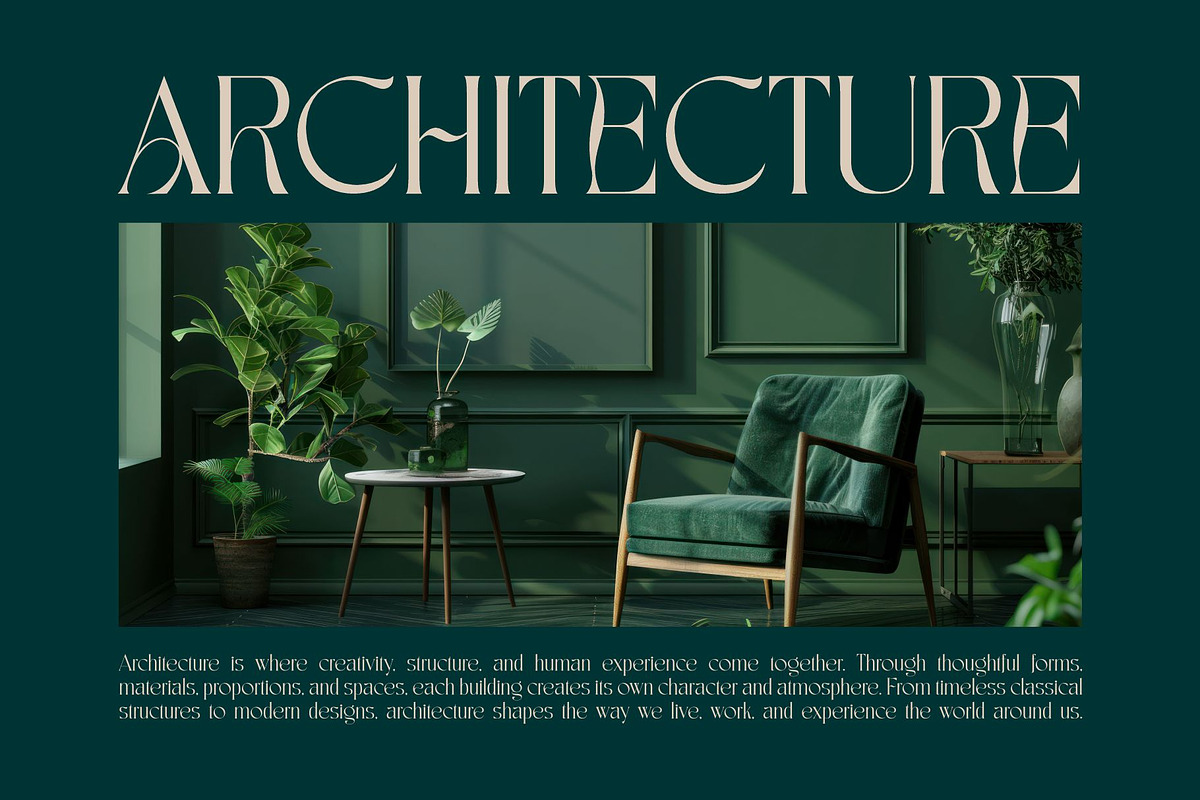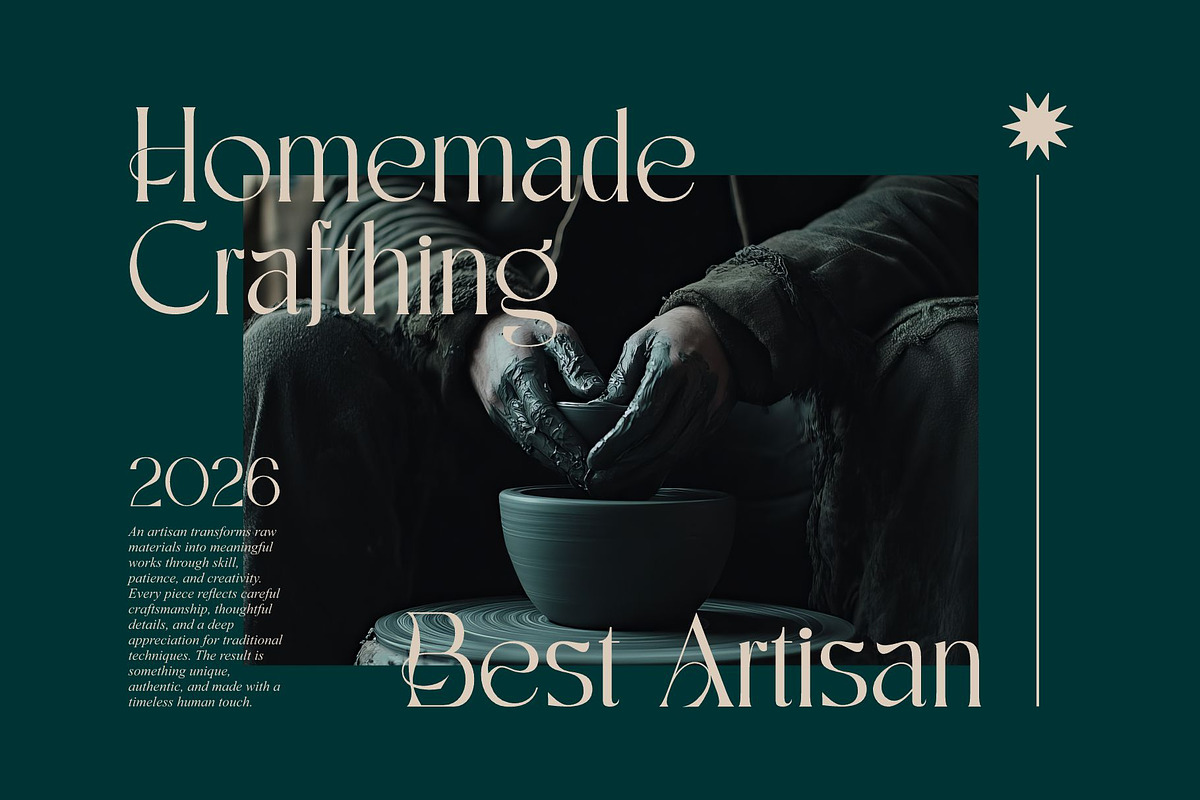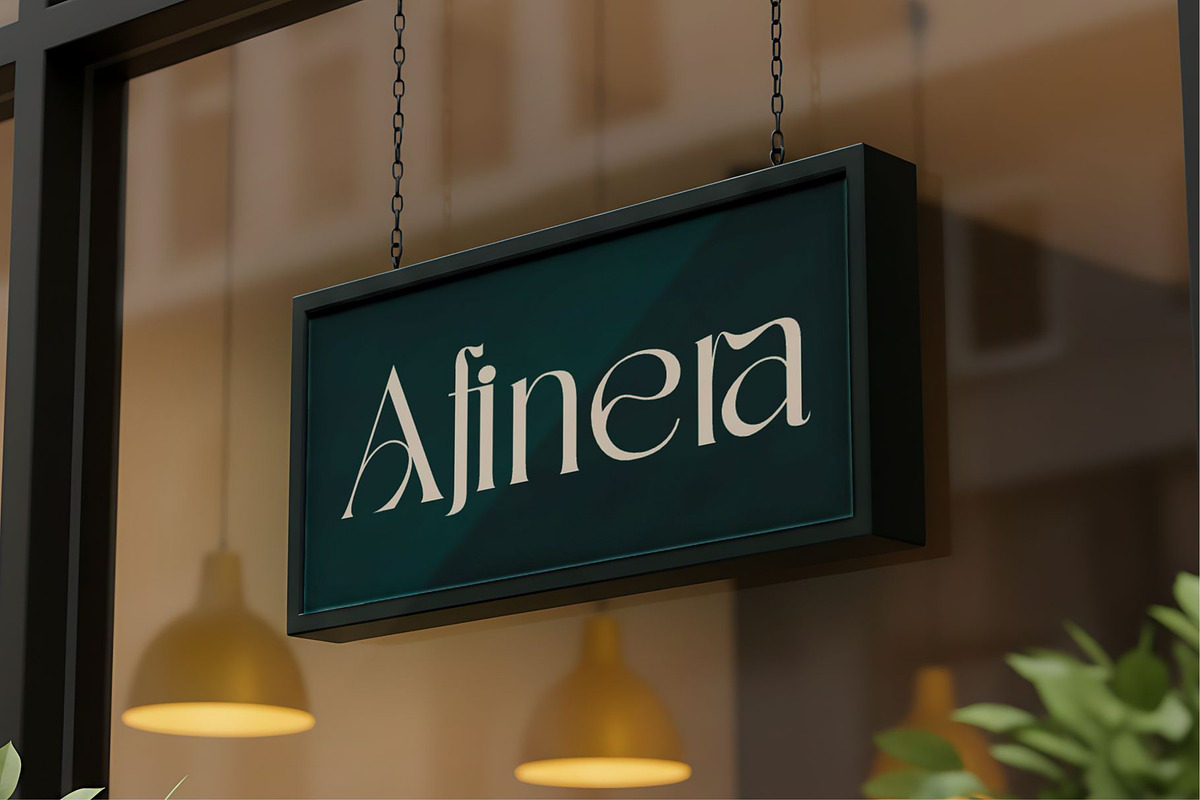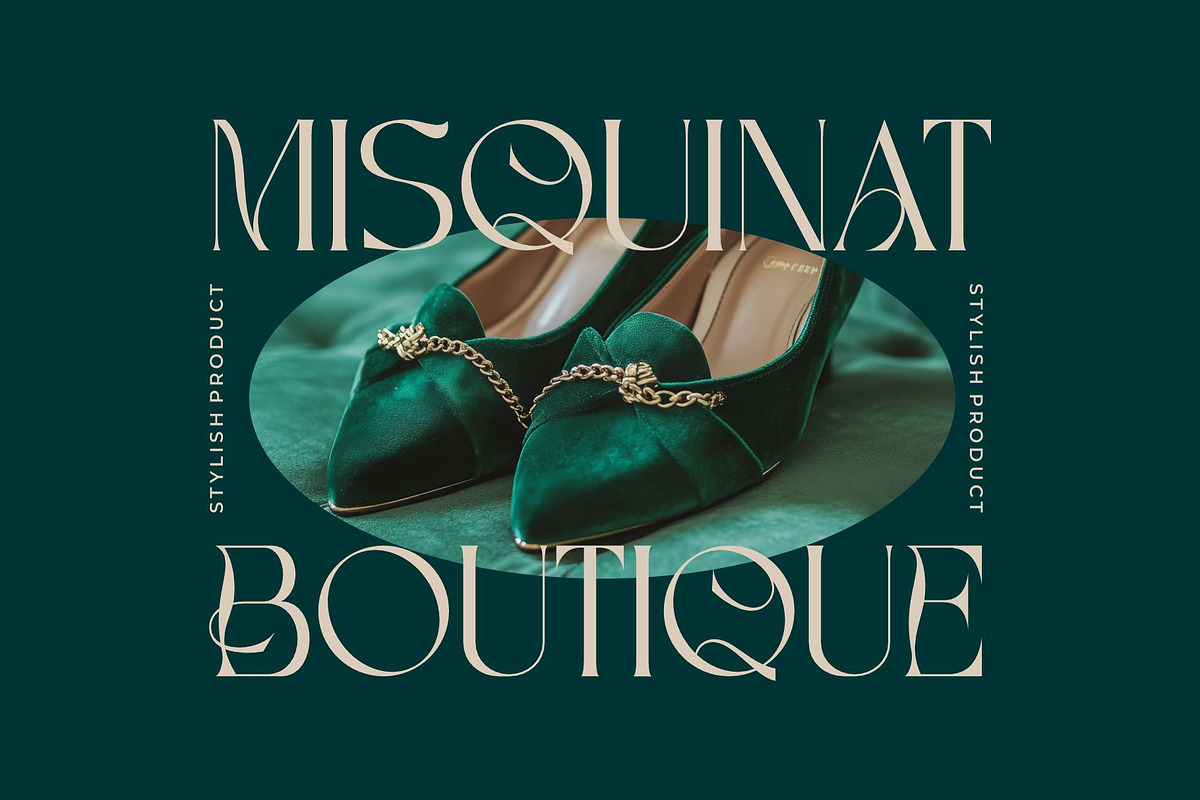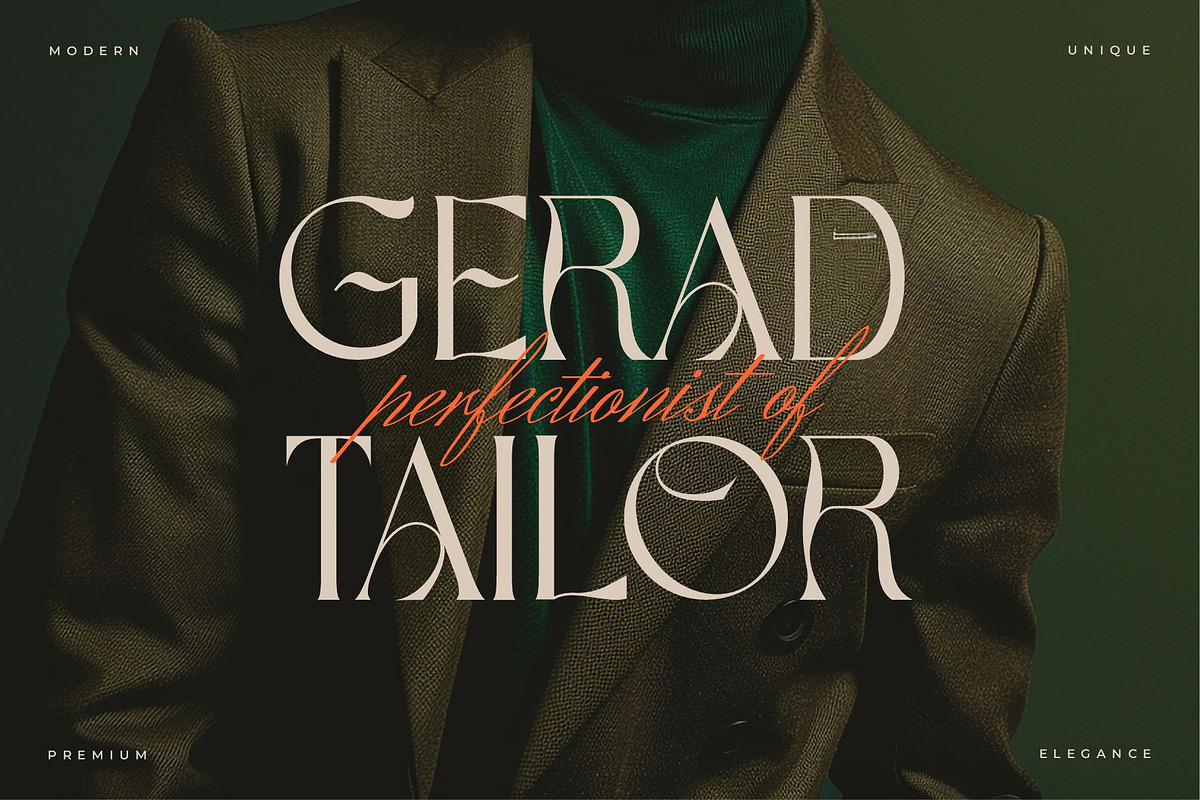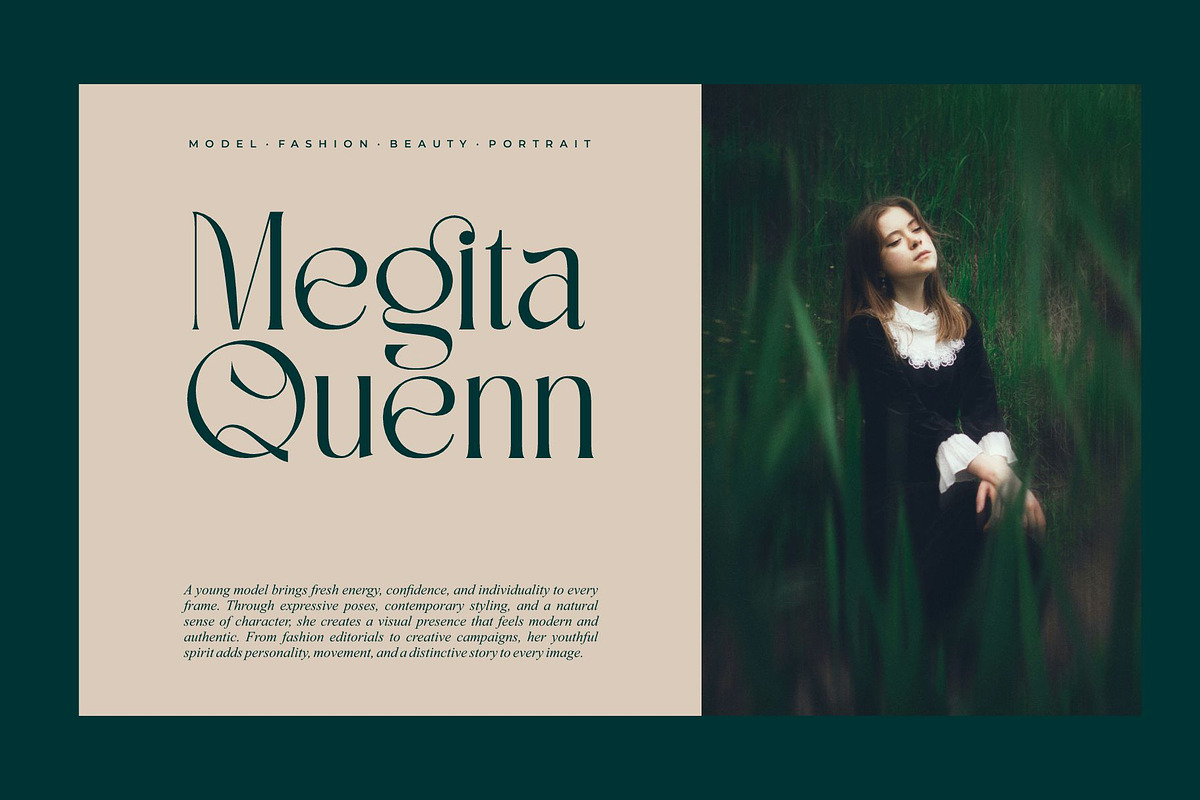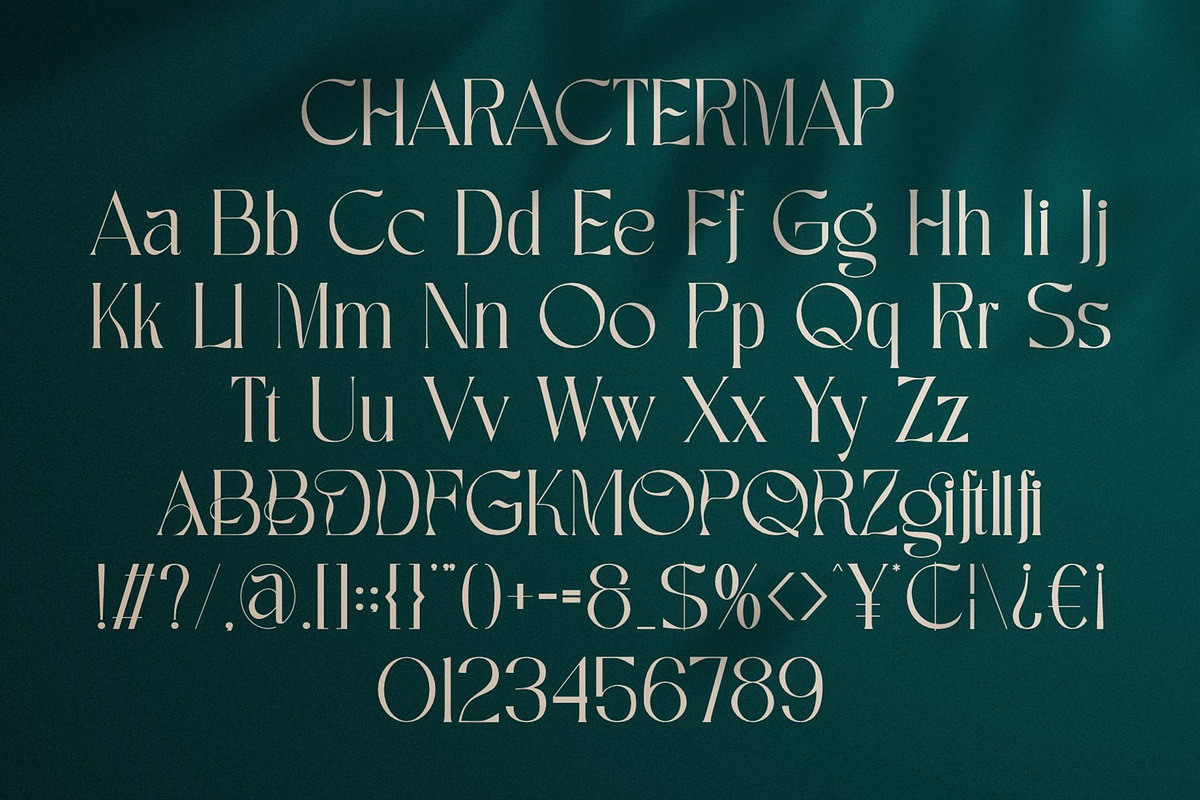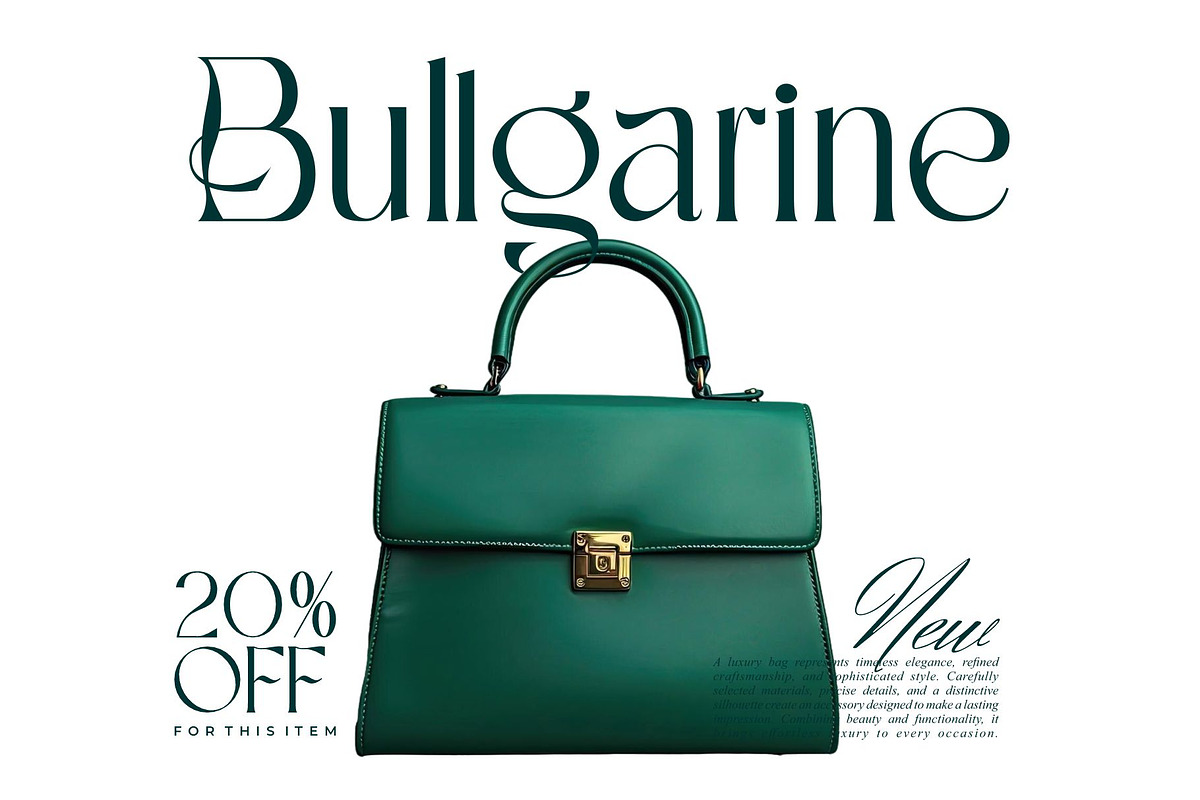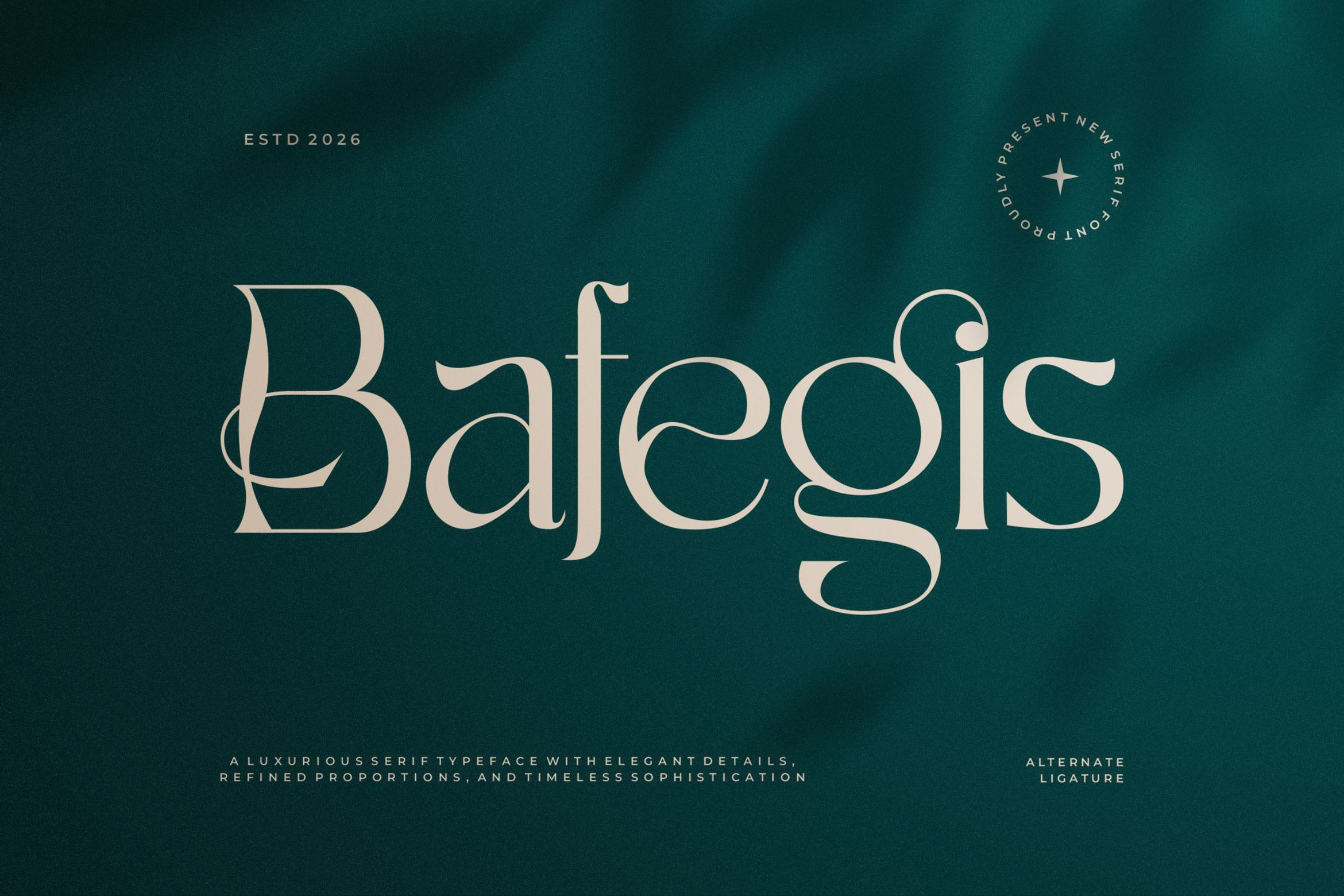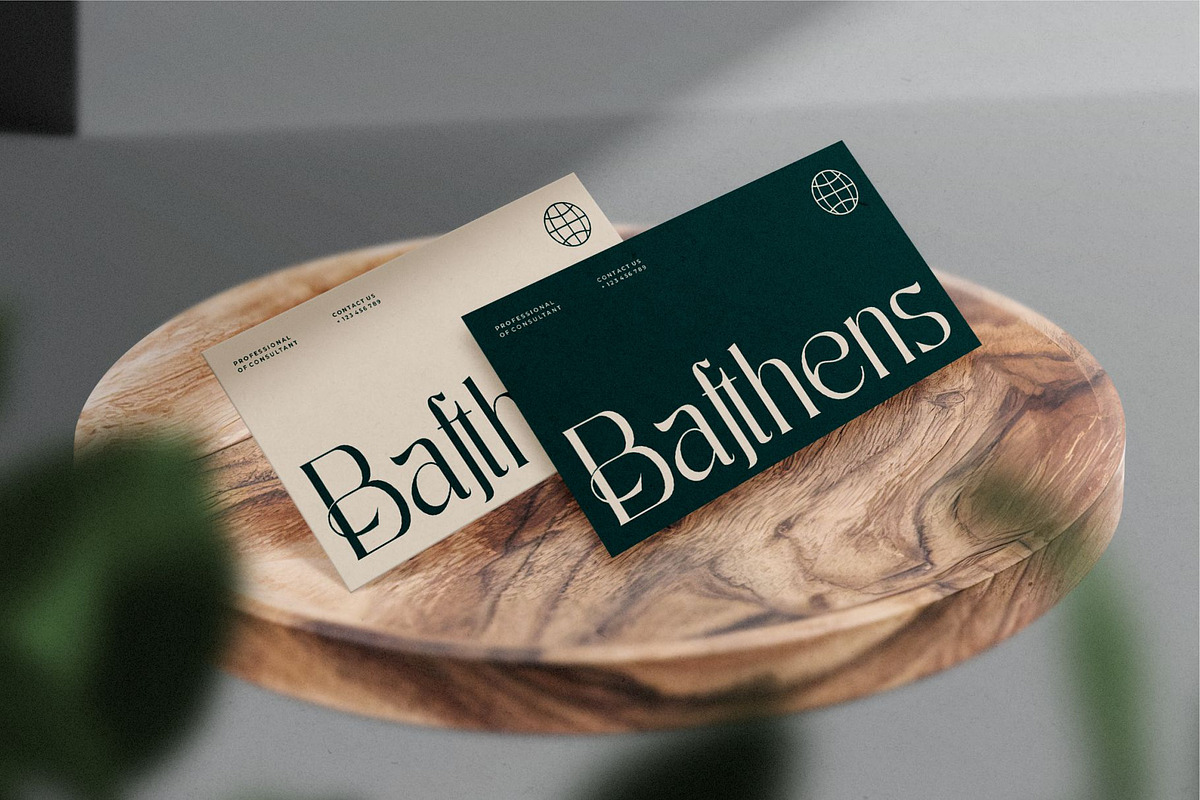
Bafegis || Elegant Serif Typeface
Bafeis is a highly versatile and elegant serif font that exudes a timeless charm. With its beautifully crafted curves and exquisite details, Bafeis is the perfect choice for a wide range of design projects. Whether you need a font for display purposes, web design, or social media, Bafeis will effortlessly elevate your creations to the next level. Its fancy curves add a touch of sophistication and uniqueness, making it a standout choice among other fonts. Embrace the versatility and elegance of Rekavo and let your creativity soar!